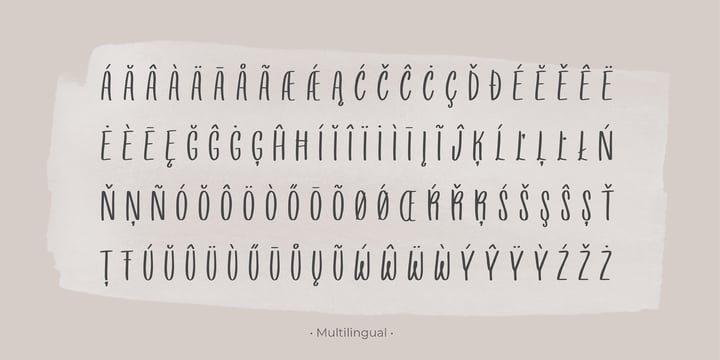
Wonsmith
by Katsia Jazwinska
The Wonsmith Font Family was designed by Katsia Jazwinska and published by Katsia Jazwinska. Wonsmith contains 3 styles and family package options.
Wonsmith is a family of 3 handwritten script fonts, including latin and cyrillic alphabet and diacritic symbols, so the font can be used for most European languages. Ligatures of the most common letter pairs are included.